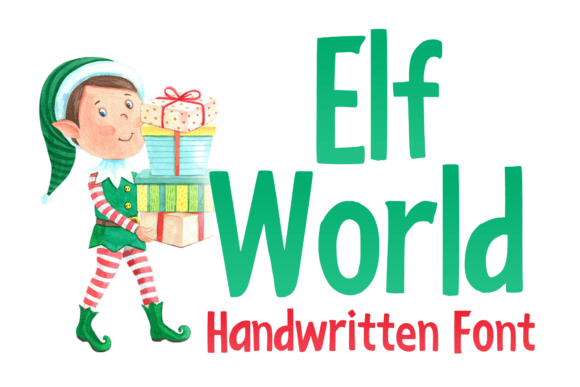
Introducing Elf World Font: A Playful Christmas Elf-Themed Display Font
The holiday season is upon us, and with it comes the need for festive and fun designs that capture the spirit of Christmas. If you’re a designer, artist, or DIY enthusiast looking for a font that embodies the playful and whimsical nature of Christmas elves, look no further than the Elf World Font. In this article, we’ll dive into the world of Elf World, exploring its features, uses, and benefits, as well as provide tips and inspiration for incorporating this delightful font into your designs.
What is Elf World Font?
Elf World Font is a Christmas elf-themed display font designed to add a touch of playfulness and festivity to your designs. With its incredibly versatile style, this font is perfect for a wide range of projects, from t-shirts and kids’ book designs to greeting cards, stickers, posters, and more.
The font’s design is inspired by the whimsical and magical world of Christmas elves, with a unique and eye-catching style that is sure to capture the attention of your audience. Whether you’re creating a holiday-themed design or simply want to add a touch of festive flair to your project, Elf World Font is the perfect choice.
Benefits of Using Elf World Font
So why choose Elf World Font for your next design project? Here are just a few benefits of using this delightful font:
- Versatility: Elf World Font is incredibly versatile, making it perfect for a wide range of projects and applications.
- Playfulness: The font’s playful and whimsical style is sure to add a touch of fun and festivity to your designs.
- Ease of use: Elf World Font is easy to use and can be incorporated into your designs with just a few clicks.
- Unique style: The font’s unique and eye-catching style is sure to help your designs stand out from the crowd.
Uses for Elf World Font
So what can you use Elf World Font for? The possibilities are endless! Here are just a few ideas to get you started:
- T-shirts and apparel: Add a touch of festive flair to your holiday-themed t-shirts and apparel with Elf World Font.
- Kids’ book designs: Create engaging and fun kids’ book designs with Elf World Font.
- Greeting cards: Add a personal touch to your holiday greeting cards with Elf World Font.
- Stickers and posters: Create eye-catching stickers and posters with Elf World Font.
- Social media graphics: Add a touch of festive flair to your social media graphics with Elf World Font.
Tips for Using Elf World Font
Here are a few tips for incorporating Elf World Font into your designs:
- Experiment with colors: Don’t be afraid to experiment with different colors and combinations to find the perfect look for your design.
- Play with font sizes: Play with different font sizes to create visual interest and hierarchy in your design.
- Add graphics and illustrations: Add graphics and illustrations to enhance your design and make it more engaging.
- Keep it simple: Don’t overcomplicate your design – keep it simple and focus on the message you want to convey.
Inspiration for Your Elf World Font Designs
Need some inspiration for your Elf World Font designs? Here are a few ideas to get you started:
- Christmas and holiday-themed designs: Create festive and fun Christmas and holiday-themed designs with Elf World Font.
- Kids’ party invitations: Create fun and playful kids’ party invitations with Elf World Font.
- Elf-themed designs: Create elf-themed designs, such as elf portraits, elf scenes, and more.
- Winter wonderland scenes: Create winter wonderland scenes with Elf World Font and add a touch of festive flair to your designs.
In conclusion, Elf World Font is a playful and versatile Christmas elf-themed display font that is perfect for a wide range of design projects. With its unique and eye-catching style, this font is sure to add a touch of festive flair to your designs and help them stand out from the crowd. Whether you’re a designer, artist, or DIY enthusiast, Elf World Font is a great choice for any project that needs a touch of fun and whimsy.